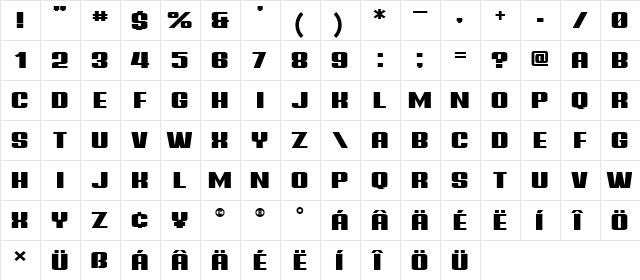
Augsburg Regular
Design Context for Augsburg Typeface
Augsburg is a composed and adaptable typeface that performs quietly and consistently across a wide range of design contexts.